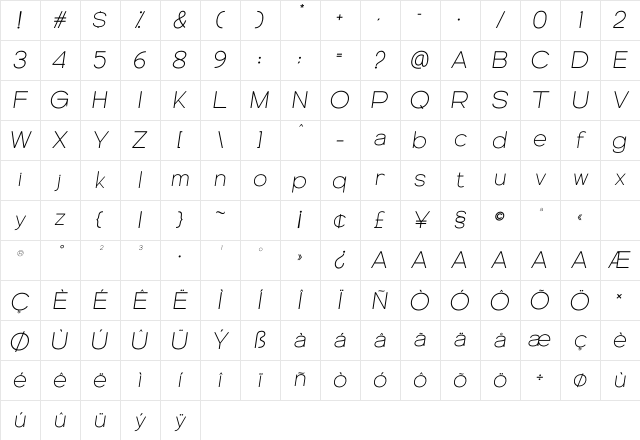
Genova is a composed and adaptable typeface that performs quietly and consistently across a wide range of design contexts. The slanted form adds forward momentum and visual energy. Its slender proportions lend an understated elegance to any composition.
Pro Tip: Use Genova for emphasis, pull quotes, and subheadings where its slanted energy can add rhythm to the layout.